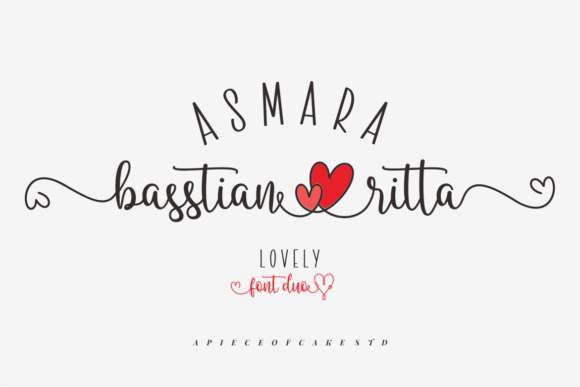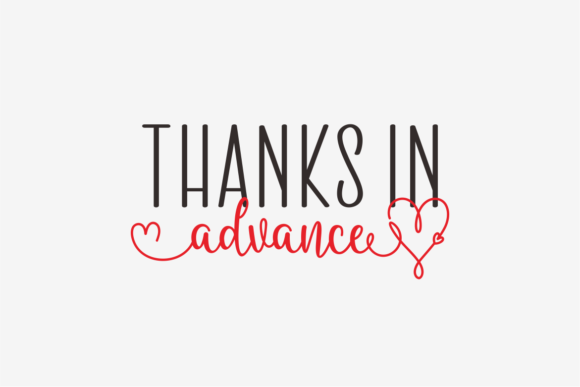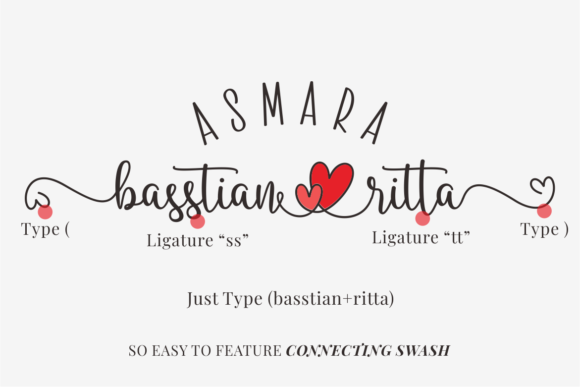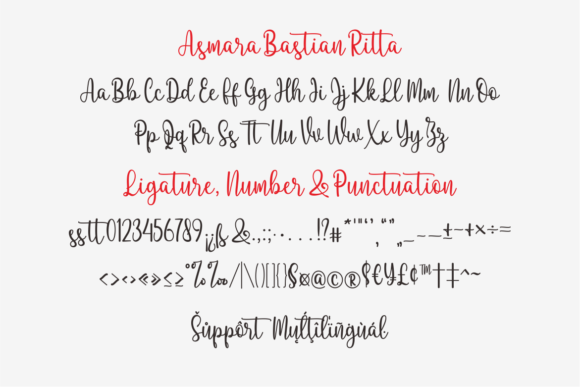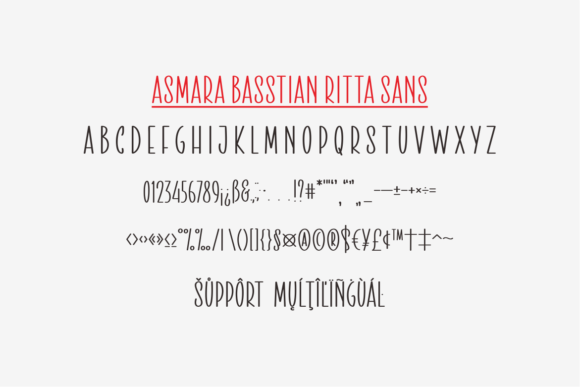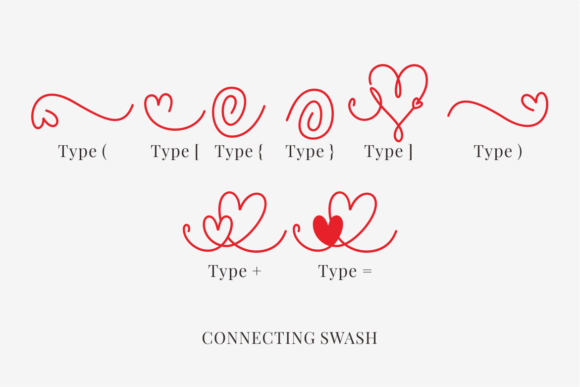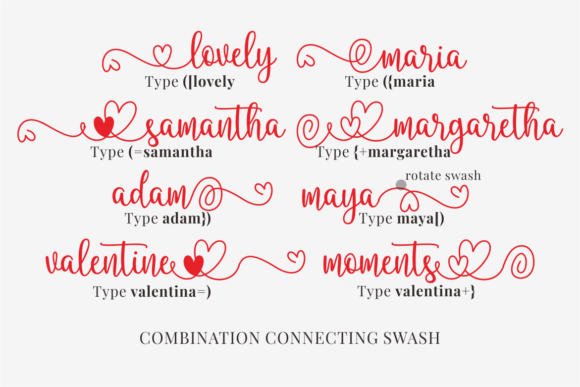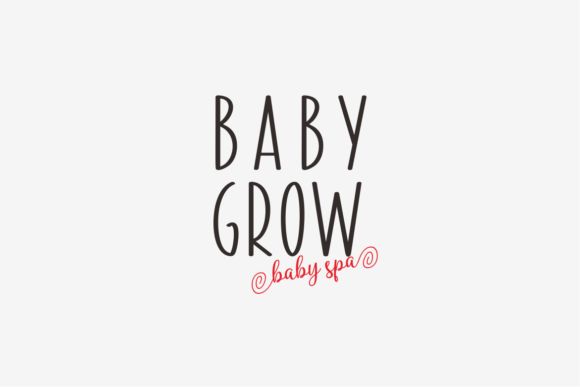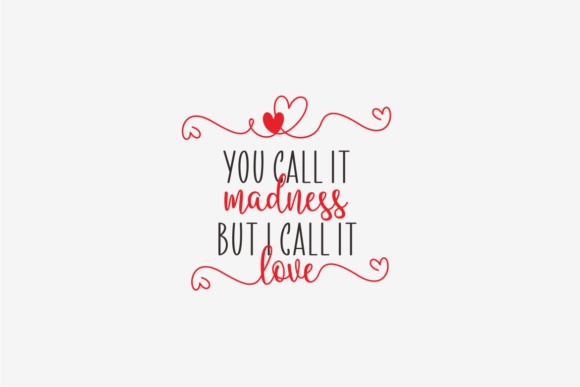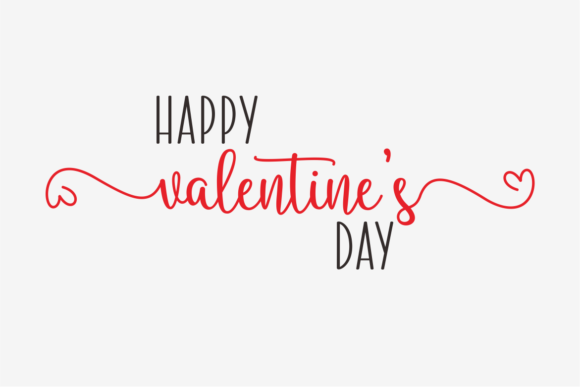
Asmara Basstian Ritta Font
About Asmara Basstian Ritta Font
Asmara Basstian Ritta is a stylish and delicate duo font (script and sans serif) suitable to a wide spectrum of applications. From greeting cards to headlines, this font will guarantee a romantic touch to each of your creations!